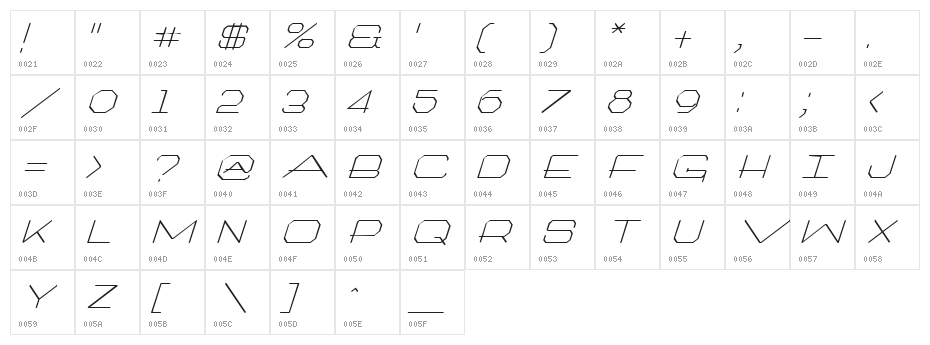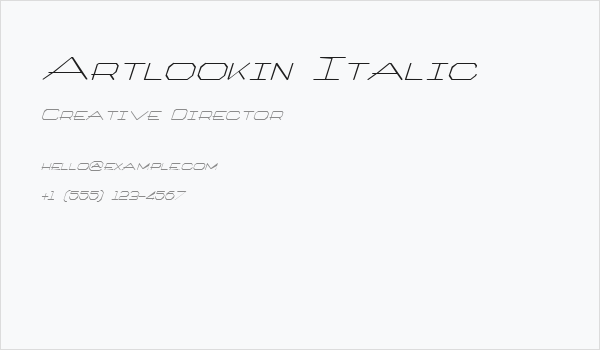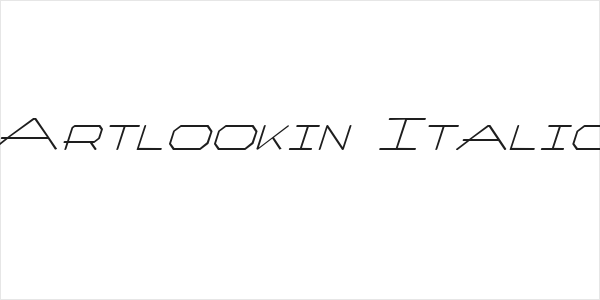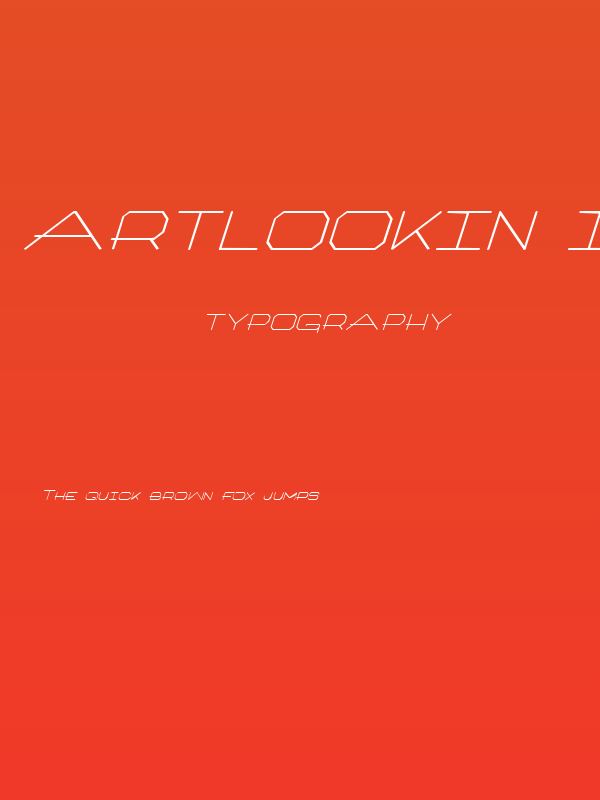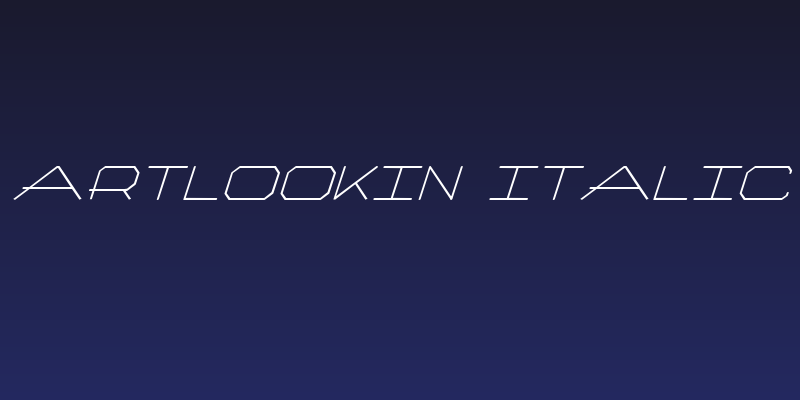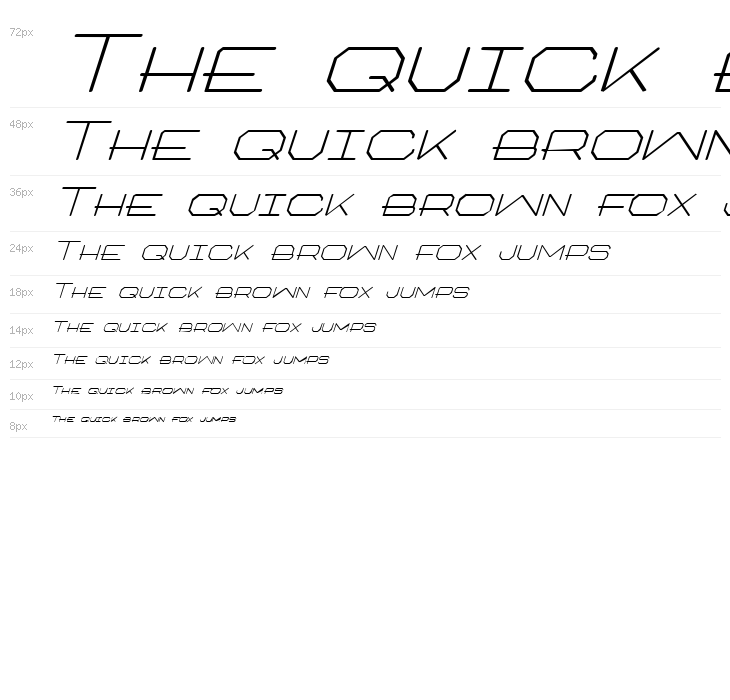
Artlookin Italic Font
Artlookin Italic Description
This font features a modern, geometric design with a unique italic slant. The characters are constructed with angular lines and sharp edges, giving it a futuristic and technical appearance. The uppercase and lowercase letters maintain a consistent style, with a distinct emphasis on angularity and precision. The numerals and special characters follow the same design principles, ensuring uniformity across all glyphs. The overall aesthetic is sleek and contemporary, making it suitable for projects that require a cutting-edge look.
| Overall Style | Futuristic, Technical |
| Use Case | Headlines, Logos, Digital interfaces |
| Proposed Projects | Ideal for technology branding, sci-fi themed designs, modern posters, and digital interfaces. |